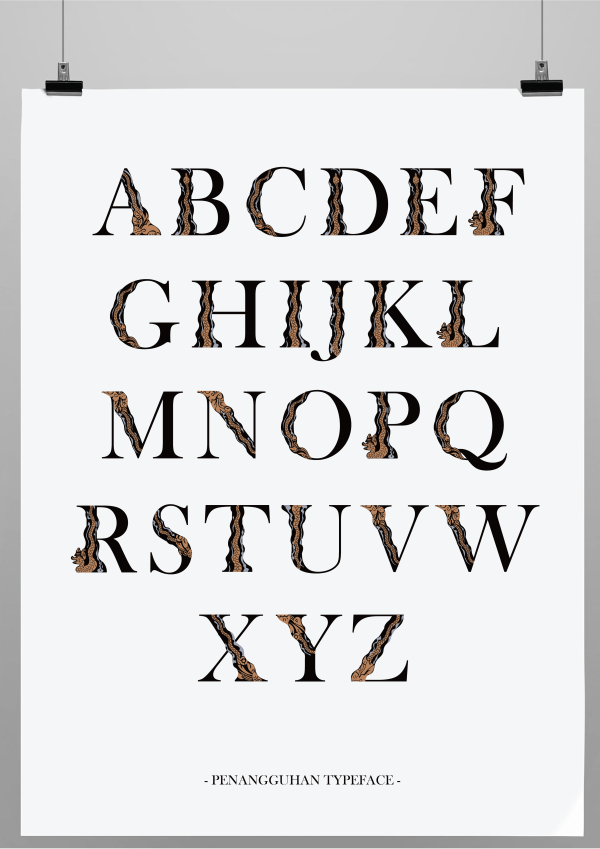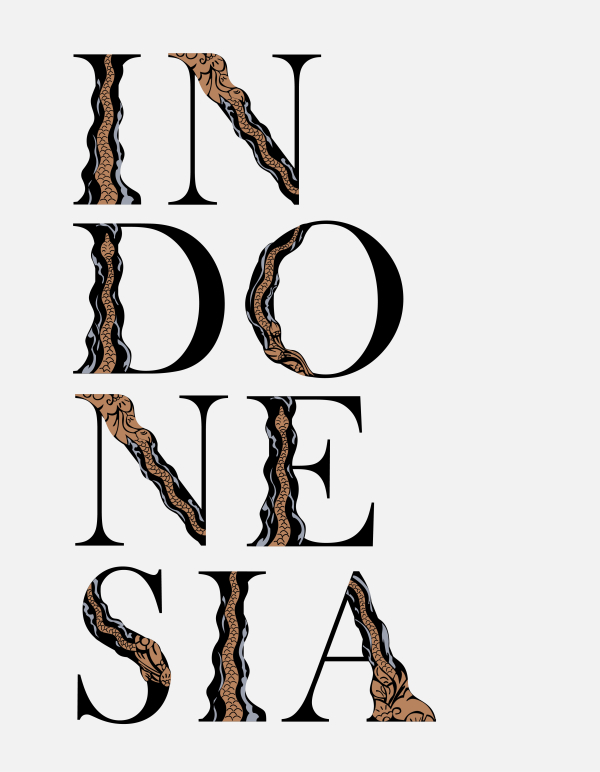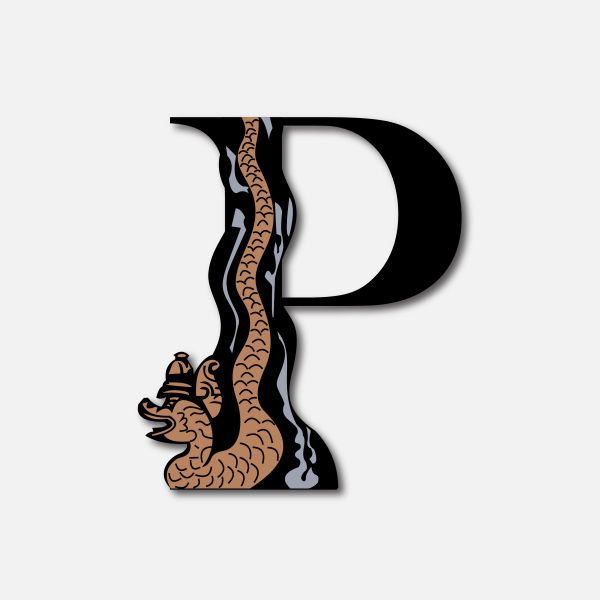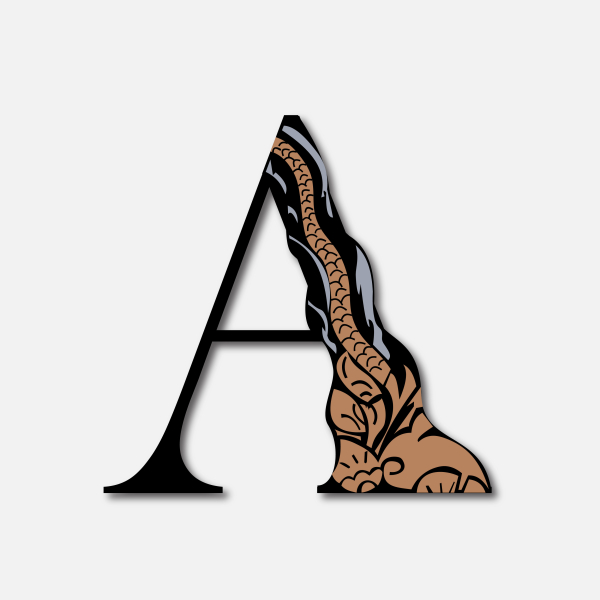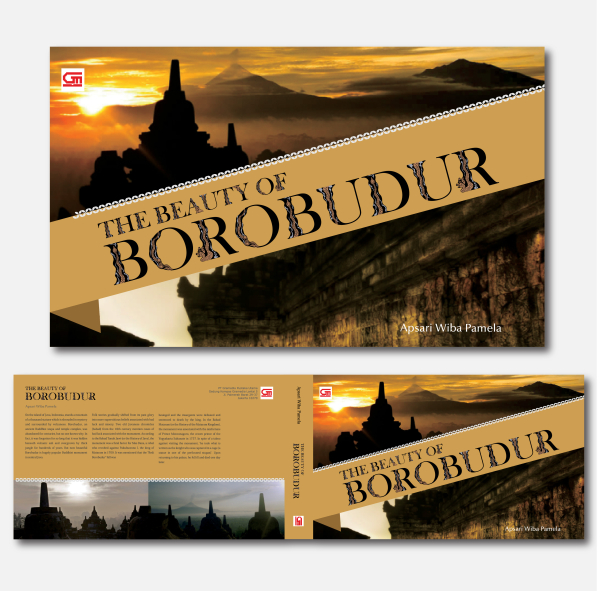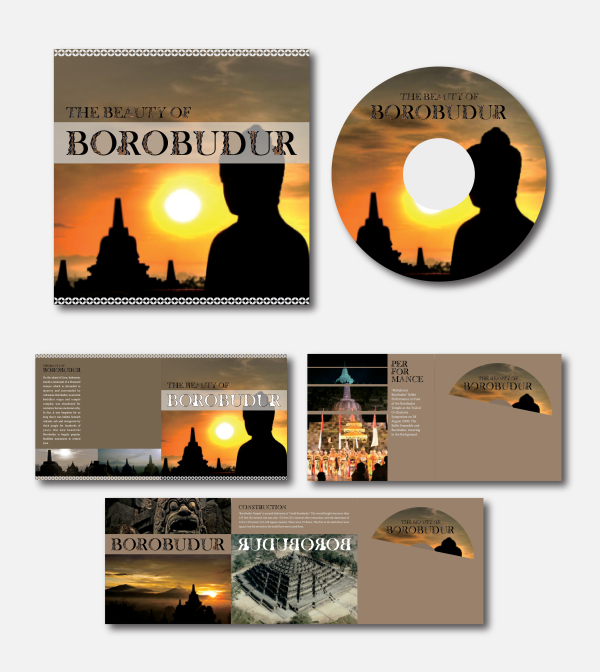
Penangguhan
A Typeface inspired by Keris, traditional weapon with many cultural function from Central Java - Indonesia. Baskerville is used as a basic font; which its letters structure is utilized since its width contrast easen Keris structure blending.
Designer: Apsari Wiba Pamela
Publisher: Apsari Wiba Pamela